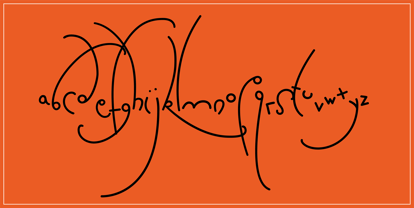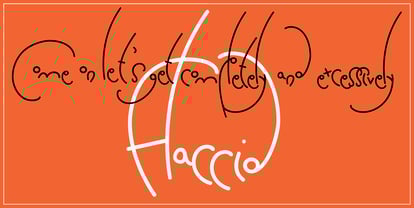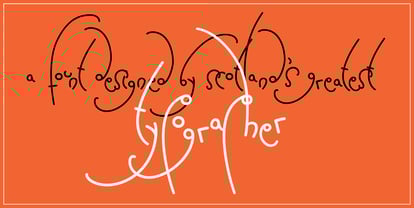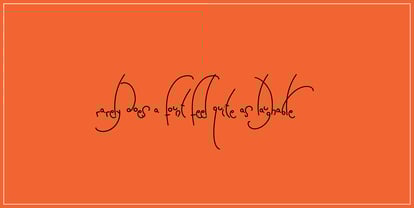
Flaccid
by Jules Akel
The Flaccid Font Family was designed by Jules Akel and published by Jules Akel. Flaccid contains 1 styles. More about this family
This typeface is a classic of the late twentieth century, used by one of the greatest graphic designers of the time.